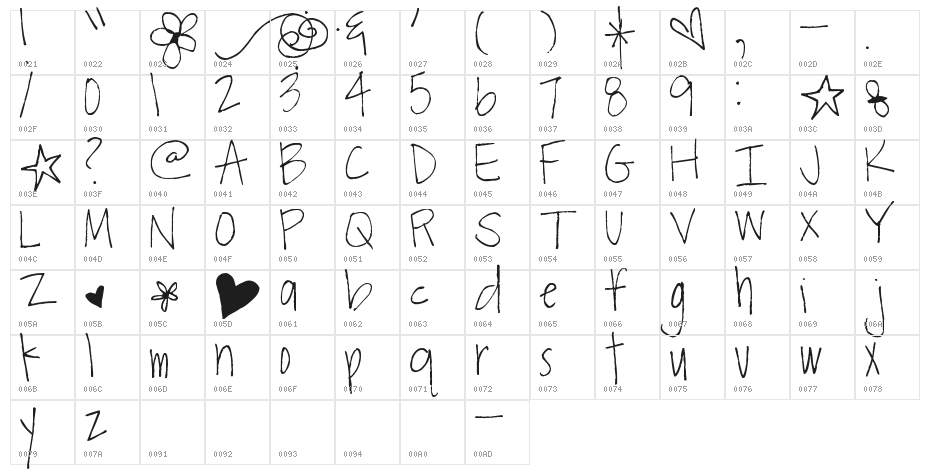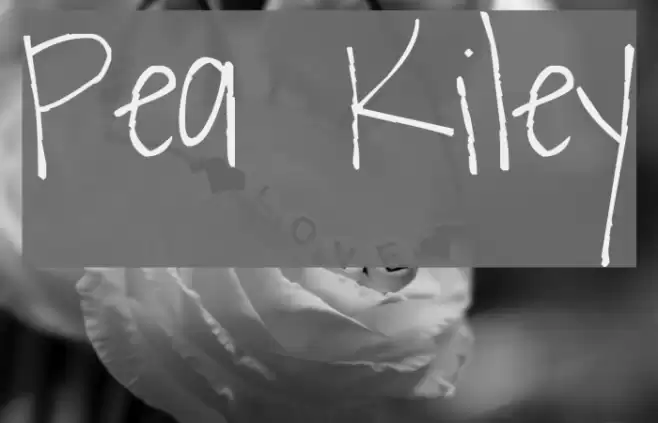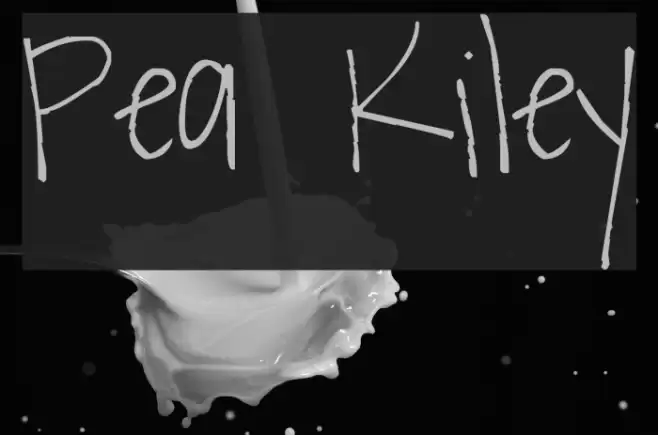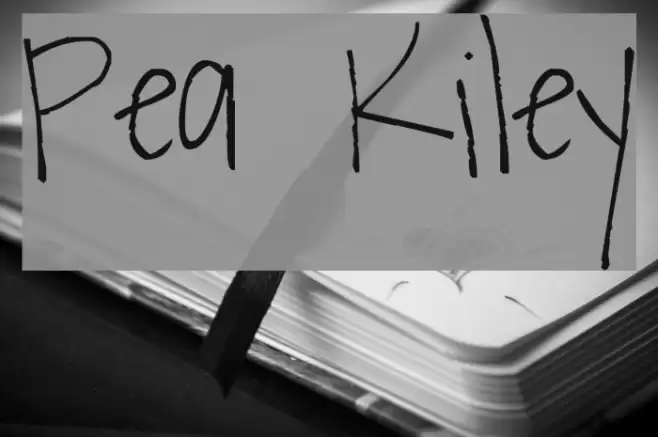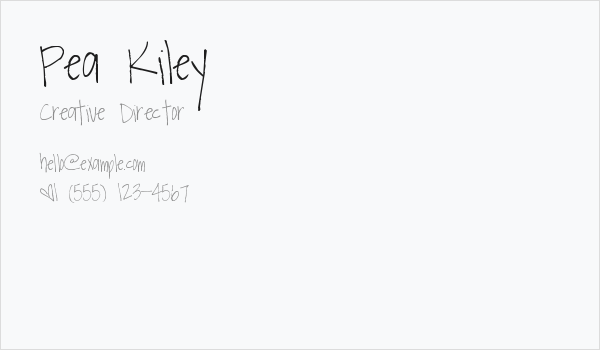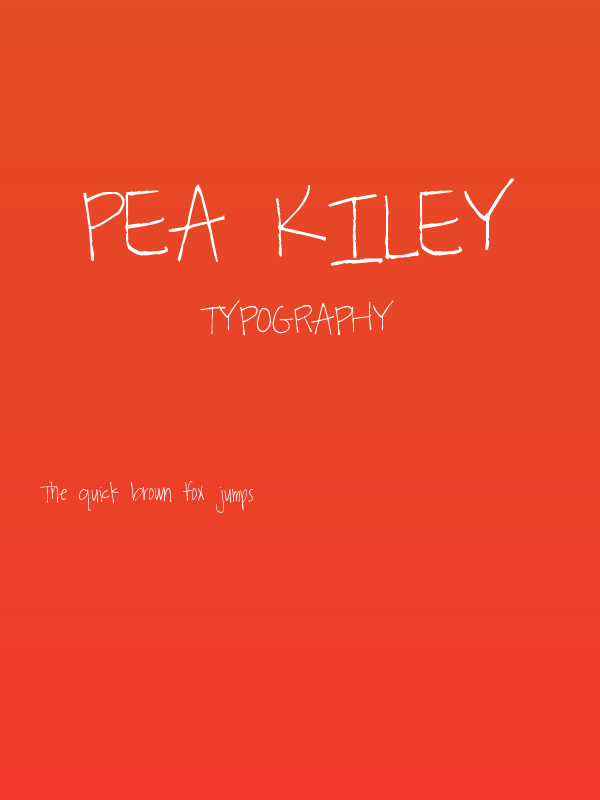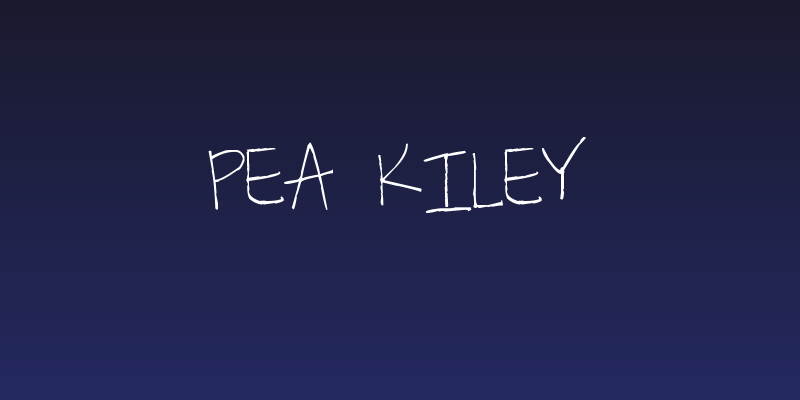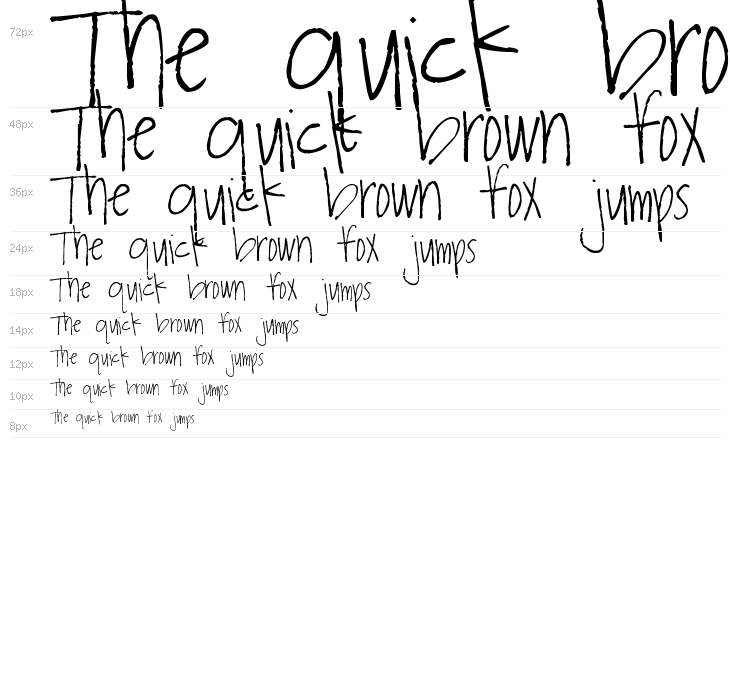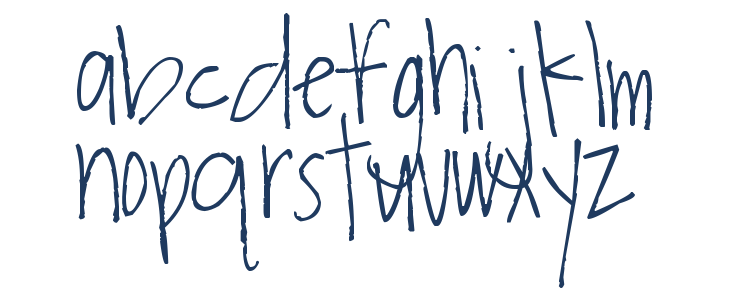
Pea Kiley Font
Pea Kiley Description
This font exudes a playful and whimsical charm, characterized by its hand-drawn, uneven strokes that give it a personal and informal feel. The letters vary in height and width, adding to its quirky and spontaneous appearance. The uppercase letters are tall and narrow, while the lowercase letters are more rounded and relaxed. Numbers and special characters maintain the same playful style, with some characters featuring unique embellishments like swirls and flowers. This font is perfect for projects that require a touch of creativity and individuality.
| Overall Style | Whimsical |
| Use Case | Headlines, Creative projects, Informal communication |
| Proposed Projects | Ideal for greeting cards, children's books, creative posters, and personal blogs. |